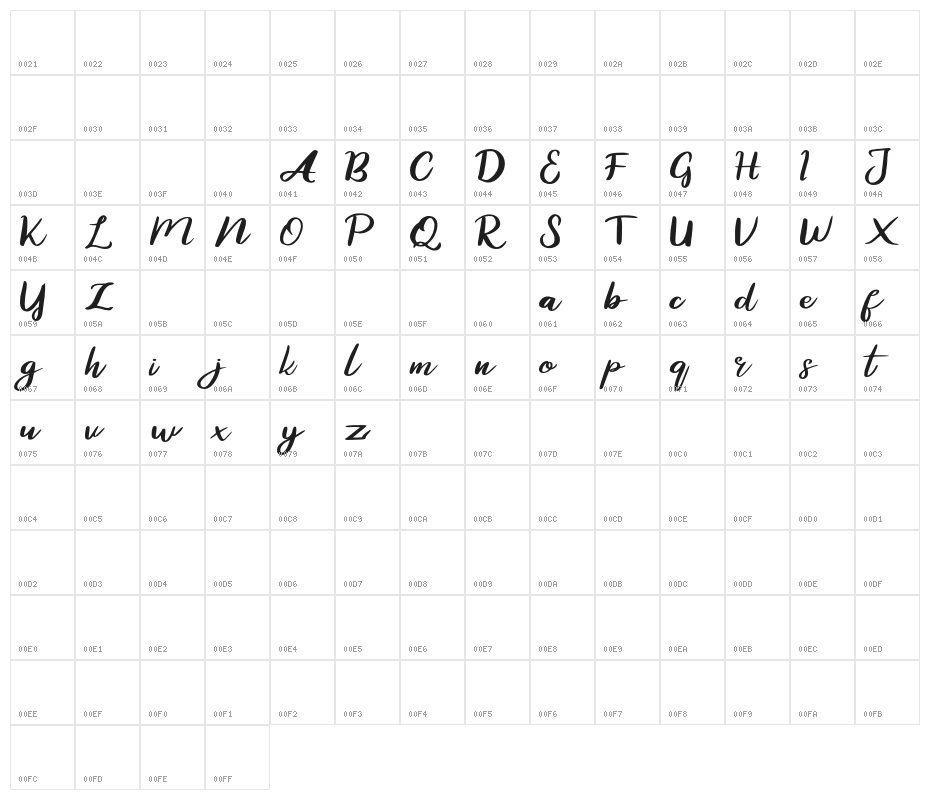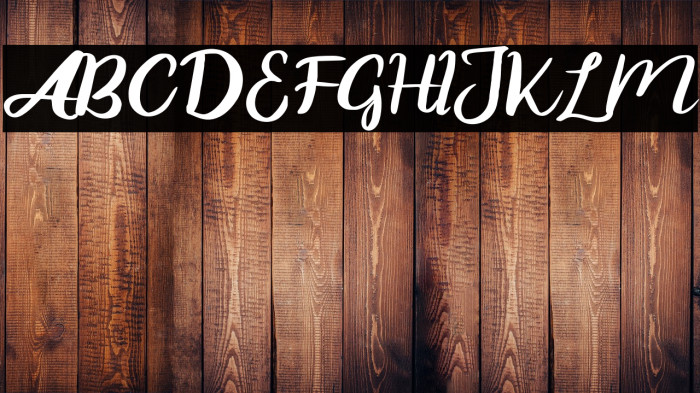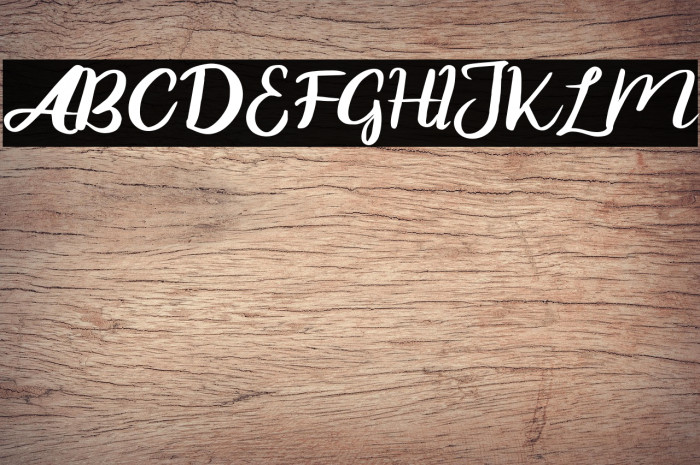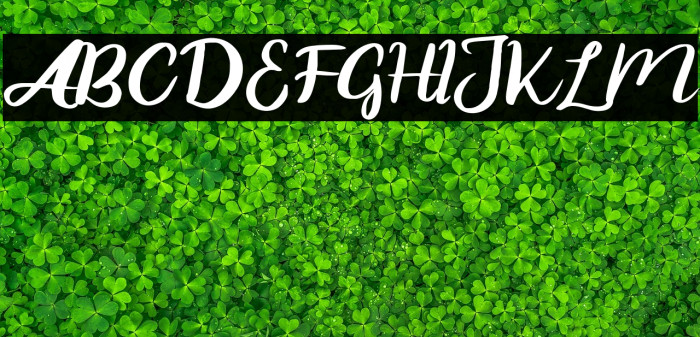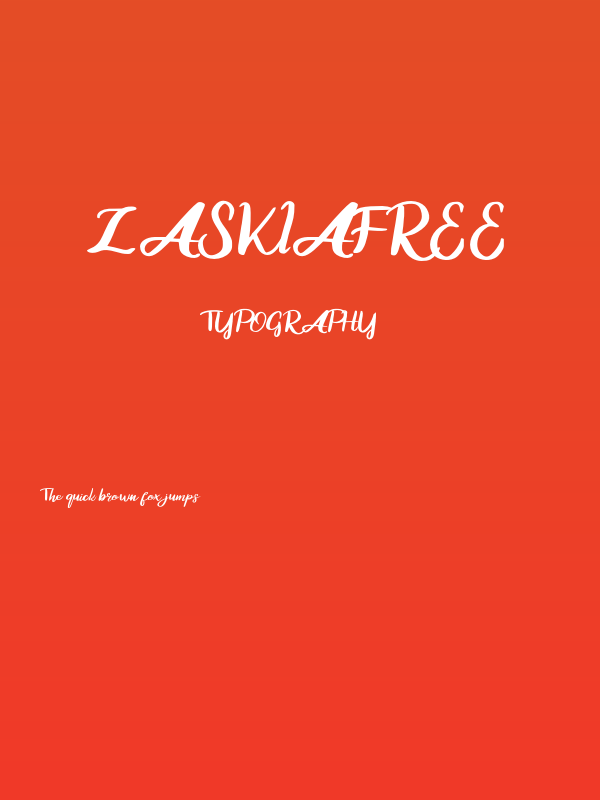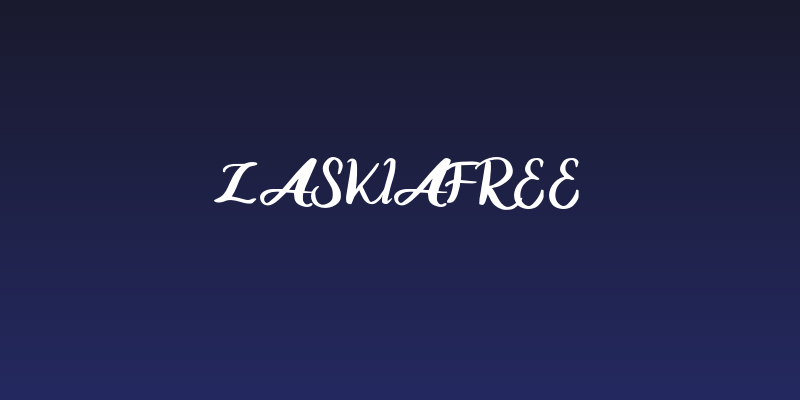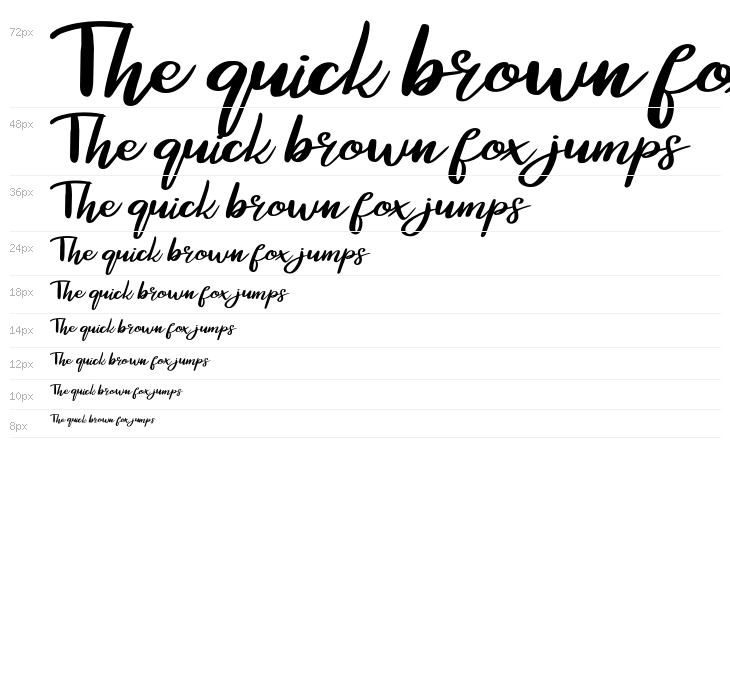
ZaskiaFREE Font
ZaskiaFREE Description
This font features a flowing, cursive style with elegant loops and swashes, giving it a handwritten appearance. The uppercase letters are bold and prominent, while the lowercase letters maintain a consistent fluidity, enhancing the script's overall elegance. The characters are slightly slanted, adding a dynamic feel to the text. The font's strokes vary in thickness, providing a moderate contrast that enhances readability while maintaining its decorative appeal. The spacing between characters is tight, which helps in maintaining the continuity of the script style. This font is ideal for projects that require a personal touch, such as invitations, greeting cards, or branding materials that aim to convey elegance and sophistication.
| Overall Style | Elegant, Decorative |
| Use Case | Headlines, Invitations, Branding |
| Proposed Projects | Ideal for wedding invitations, greeting cards, personal branding, and elegant packaging designs. |